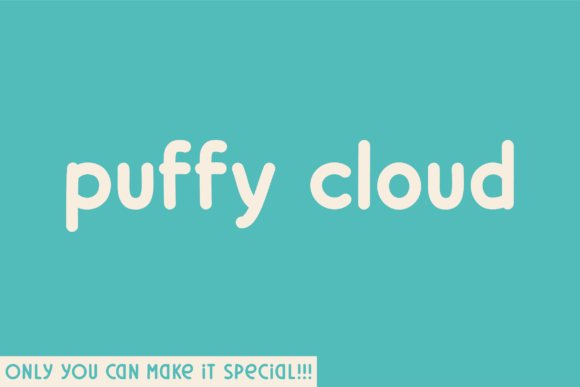
Embrace the world of nostalgic charm with Puffy Cloud Font, a charismatic creation of Hanna Bie tailored to transport you to a realm of vintage design brilliance. This sans serif font, meticulously crafted for maximum visual impact, exudes a playful spirit and an undeniably retro flair that will make your designs dance with timeless elegance.
Immerse yourself in a symphony of handcrafted beauty designed to ignite your creativity and captivate your audience. Let Puffy Cloud Font whisk you away to an era of artistic wonder, where your words take on a life of their own, whispering tales of forgotten eras and evoking emotions that transcend time.
Express yourself with boundless freedom, unleashing the power of Puffy Cloud Font to elevate your designs to new heights. Let its graceful curves and whimsical charm transform your messages into visual masterpieces that tell stories, spark conversations, and leave an indelible mark on every reader's heart.
This remarkable font is the ultimate choice for creating large quotes that emanate a profound sense of nostalgia and intrigue. Its unique character dances and shimmers on the page, inviting eyes to linger and hearts to connect with the words you so passionately convey.
Step into a world where vintage charm meets modern elegance, where playful nostalgia interweaves with timeless sophistication. Puffy Cloud Font is your gateway to a creative universe where your designs will flourish and shine, captivating audiences with their timeless beauty and emotional resonance.